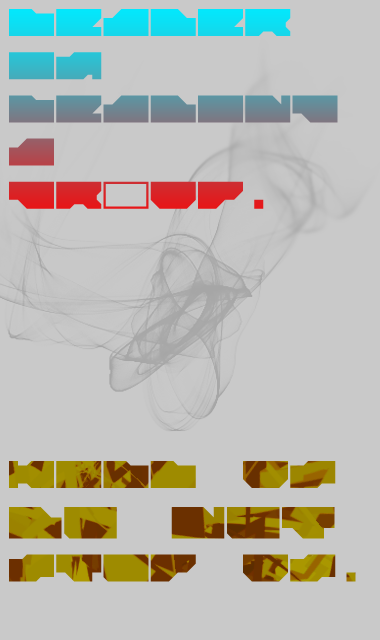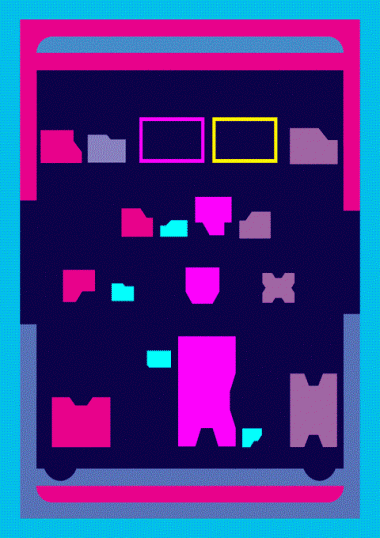
I ABSOLUTELY don't think this font is ugly NOR unreadable (but many people say the same about my fonts, so I am not sure to be the best reference). An (at last) uncanny blocky font that needs courage to be made and read, and wich opens the door to a unique aesthetic world.
At pixel size, it looks like an old Vasarely abstract painting, and then you read the words, like by magick. I think you could make Big size prints, it would very much like abstract patterns, but actually there would be "messages" hidden in the "paintings. A great part of my artistic works function like this.
Definitely an excellent work !
Many thanks. I have written above - "ugly and unreadable" in an intention to underline the whole character of font.
And there is an example of use:
beautiful sample for sure
went back looking at it, don't understand why nobody seems to have appreciated this intelligent, extraordinary design. For me undoubtly, despite its difficult to read aspect, your best work so far, at least as impressive as your easier to receive because more familiar Sector 017 everyone (me included) loved here. People are too much unadventurous in front of the not familiar and truly new. They do not know what they are loosing here.
Neoqueto, I used LDR#0 in my series of conceptual digital paintings "Gene Type" where the words BLOOD DATA FLUX MORPH form a family :
-The 2 O of Blood form the eyes of the father, the T of Data his nose, the U of Flux his mouth, the R of Morph his body;
-The second O and the D of Blood form the eyes of the mother (she's eye-in-eye with her man), the second A of Data form her nose, the X of Flux her mouth, the H of Morph her body;
-The B and L of Blood form the eyes of the child, the D of data his nose, the F of Flux his mouth, the M of Morph his body;
-The first A of data form the eye in profile of the pet, the L of Flux its nose, the O of Morph its mouth, the P of Morph the end of its body partly hidden by the R.
They are all in a shematized wagon so that when the digital prints are exposed together, they form a train. This work, behind its joyful colours and childish forms, is talking about eugenism, about dark pages of humanity and about how with the phenomenal progesses of technology in the genetic domain, this could be far more worse and nightmarish than it was in the 1930-1940s if all this should start again
The title of the series "GENE TYPE", plays on two levels : The type of gene, but also the the type of "type", because each family uses only one font that gives her her "genes". So this is surely my graphic series that is the most linked to what we are doing here.
GOOD LUCK NEOQUETO FOR THE CAREER OF LDR#0 ON DAFONT.COM! I hope you will find there more than the only one fan you found here, this astounding work really deserves it ! ! !
Whoa. I didn't knew you're tracking my job here, on DaFont.com and that I've got fans (>:D). I feel so... appreciated. Thank you.
And back to the BDFM - the word "data" except the T - looks like a father's moustache... Mixed up with mother's mouth. It's so personal to me, well, I had not got a pet ever, but the model of my family was the same, until my father died (he had moustache). For me, the colours are so tearful too... Oh, I hate you, N.E. - I had a beautiful day, I wanted to jump down into a bed and fall asleep without nightmares... Now, the rest (I mean - 5 - 10 minutes) of present day are ruined by this sad picture (that's ok, me kidding).
He said that my concept of design is intelligent! What an achievement!
Dear Neoqueto, this was a very emotional moment here, moments like this make us can feel that Fontstruct is a little bit more than a software or a typographers site. I'm sorry for your father, hope that you had some time for your mourning and that all this didn't hurt you too much.
GENE TYPE will be integrated in my sort of catalogue raisonné untitled TESTAMENT CONCENTRANT presented in a limited edition series of fascicules. I recently made a long comment about it on the page of Frodo7 font called "Études pour Noir et Blanc 02B", you should check it. Maybe one day some courageous gallerist would like to exhibit Gene Type, but this is not on the spot for now.
How about a "redux" version of LDR#0?
Very cool! Like the squarish! And perfect for logos!